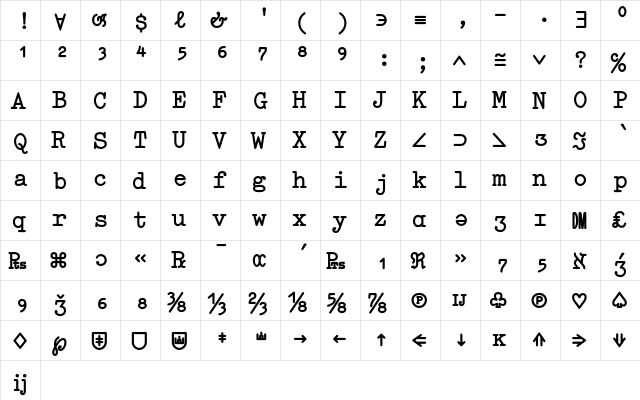
Elementa Symbol Bold Font Preview
Elementa Symbol Bold
Elementa Symbol Bold Font Details
Design Context for Elementa Symbol Typeface
Elementa Symbol is a composed and adaptable typeface that performs quietly and consistently across a wide range of design contexts. Its bold stroke weight gives it real presence on the page.